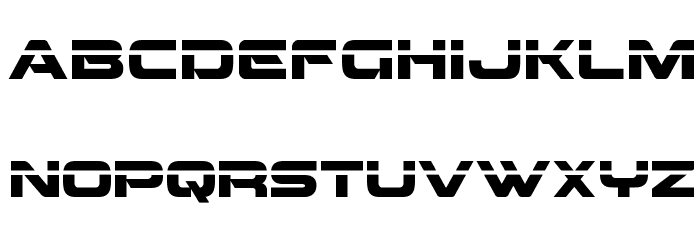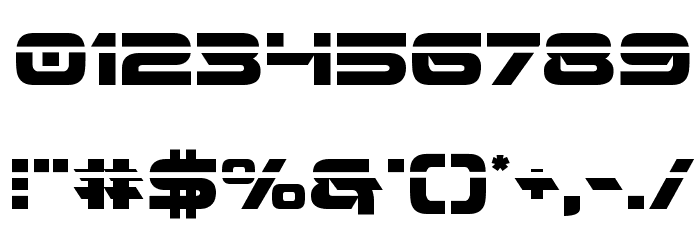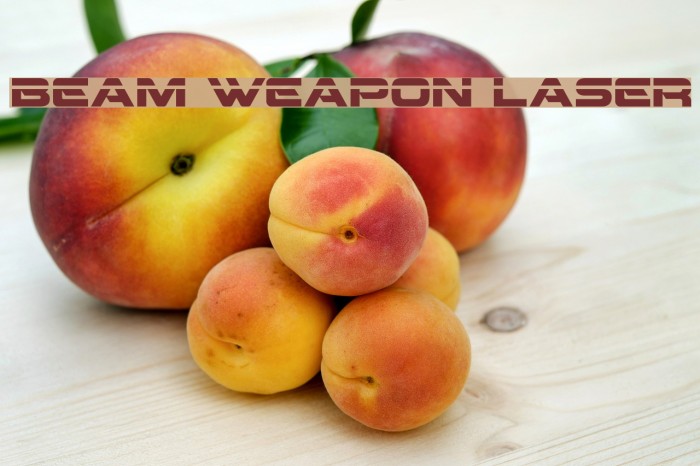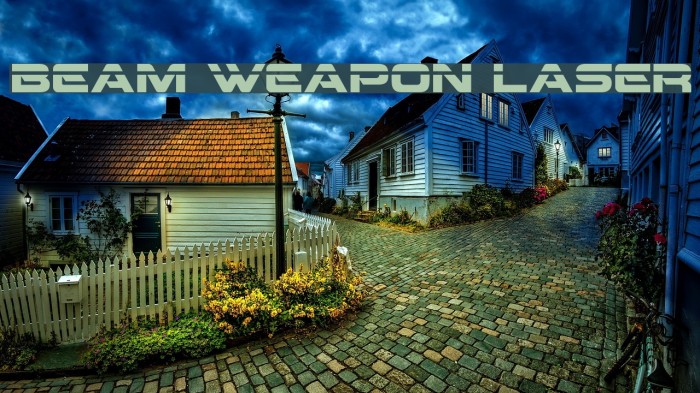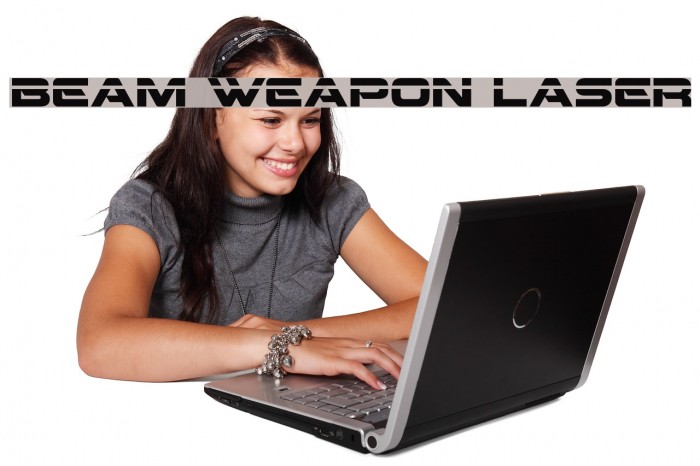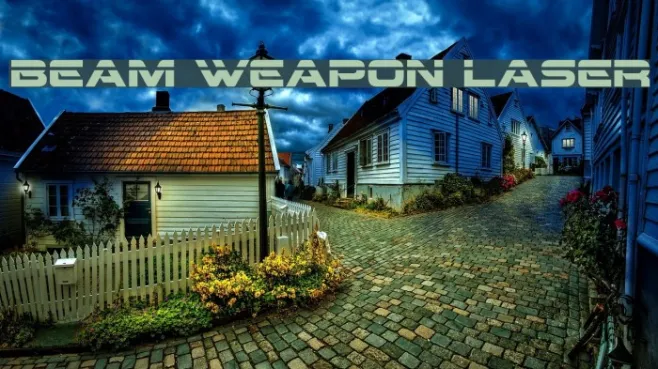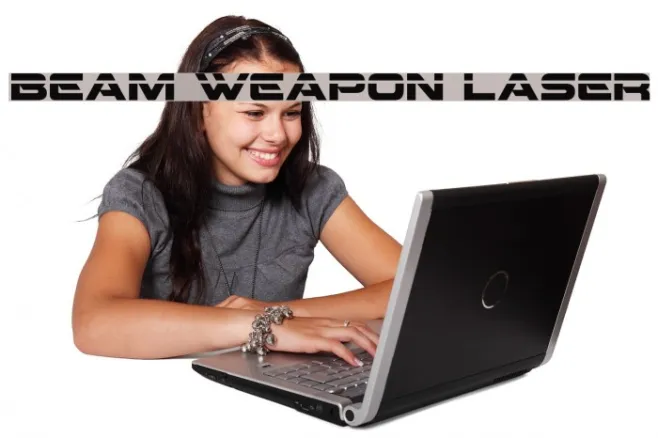
Beam Weapon Laser Font
This font features a futuristic and bold design with a distinct geometric style. The characters are constructed with sharp angles and clean lines, giving it a high-tech appearance. The uppercase and lowercase letters maintain a consistent width, creating a uniform look. The numbers and special characters follow the same design principles, ensuring a cohesive visual identity. The font's unique style makes it stand out, suitable for projects that require a modern and edgy aesthetic.
A futuristic, geometric font with bold, angular characters.
- Proposed Projects: Ideal for sci-fi themed designs, technology branding, video game titles, and futuristic posters.